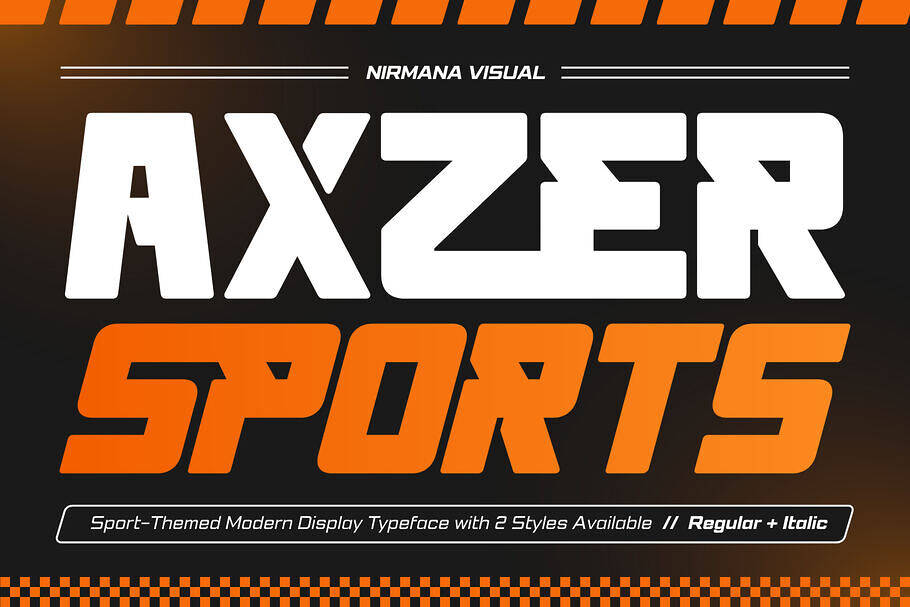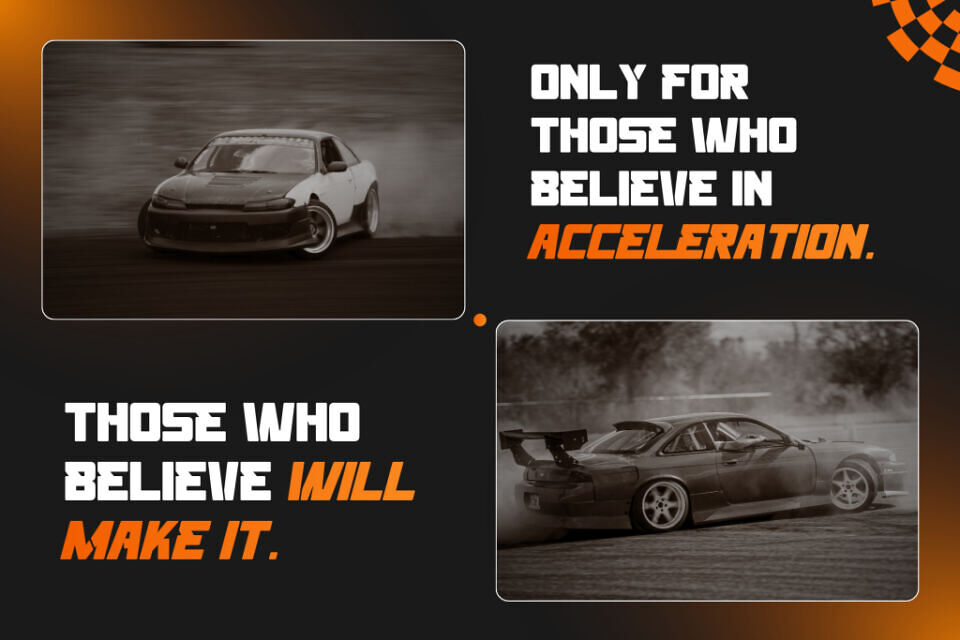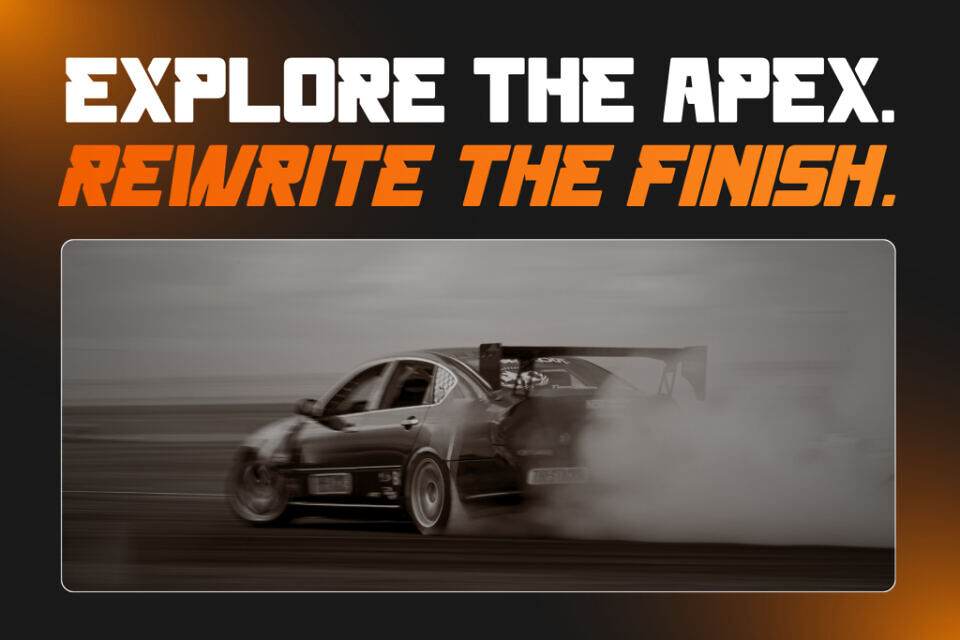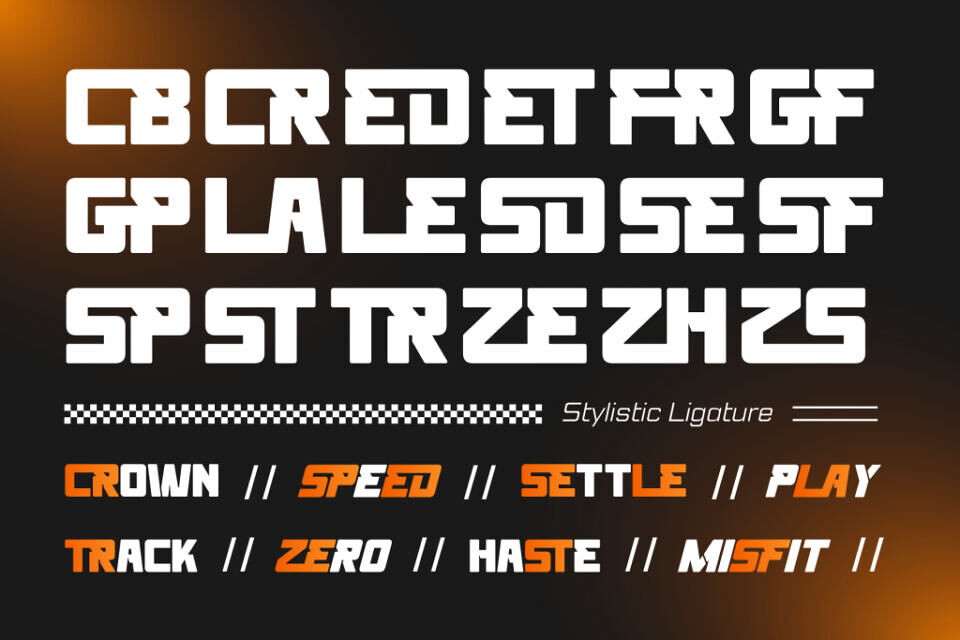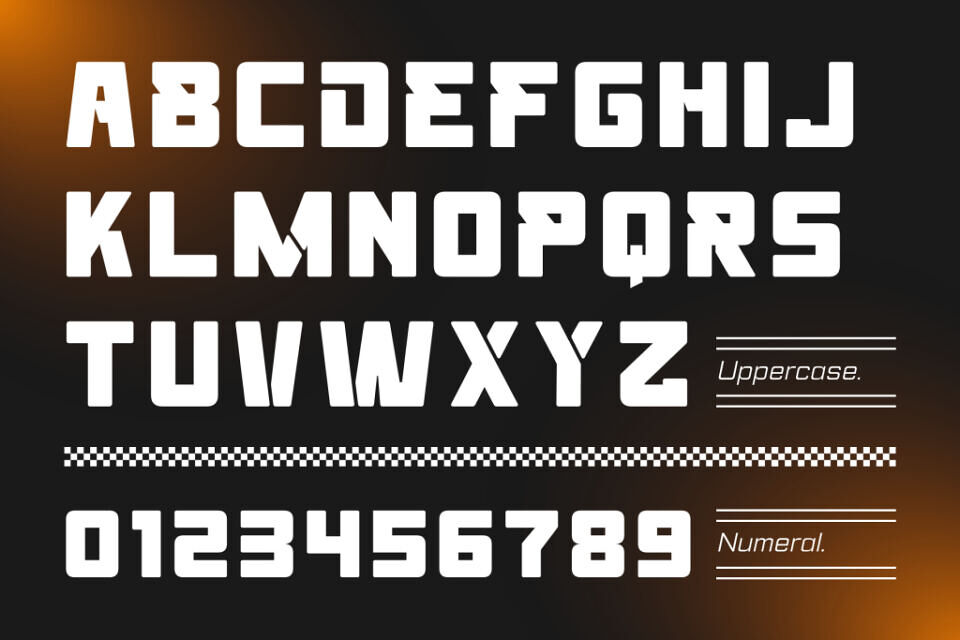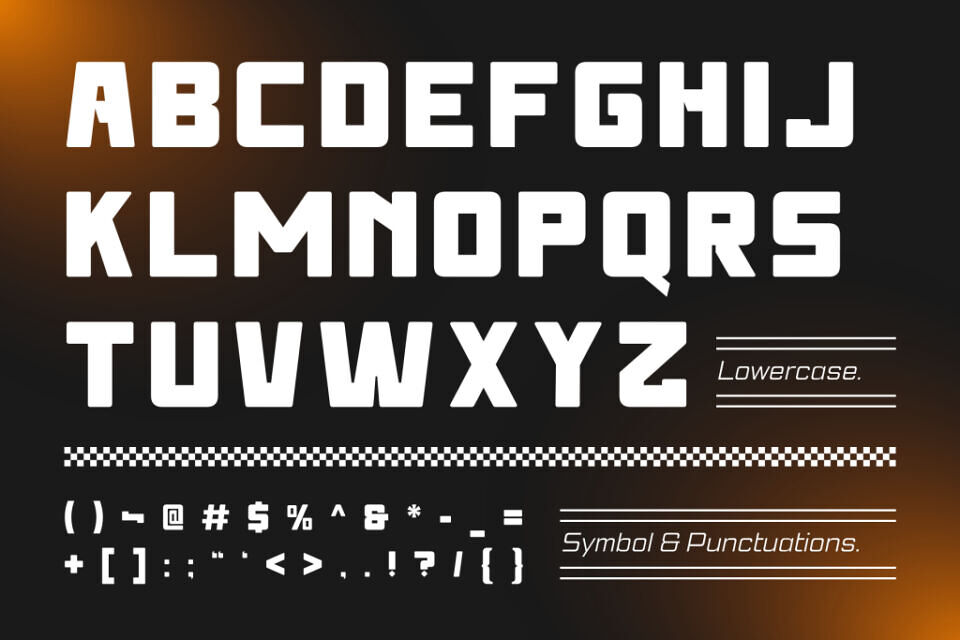
Axzer Sports Font
Axzer Sports is a high-octane display font engineered for speed and dominance. Its bold, italicized construction features an aggressive forward lean that captures the raw energy of the finish line, making it perfect for high-impact branding.
With sharp terminals and heavy geometric weight, it is the ultimate choice for racing logos, motorcycle decals, automotive signage, and gritty sports posters. Whether it’s on a jersey or a car wrap, Axzer Sports commands attention and delivers a look of pure, unstoppable velocity.